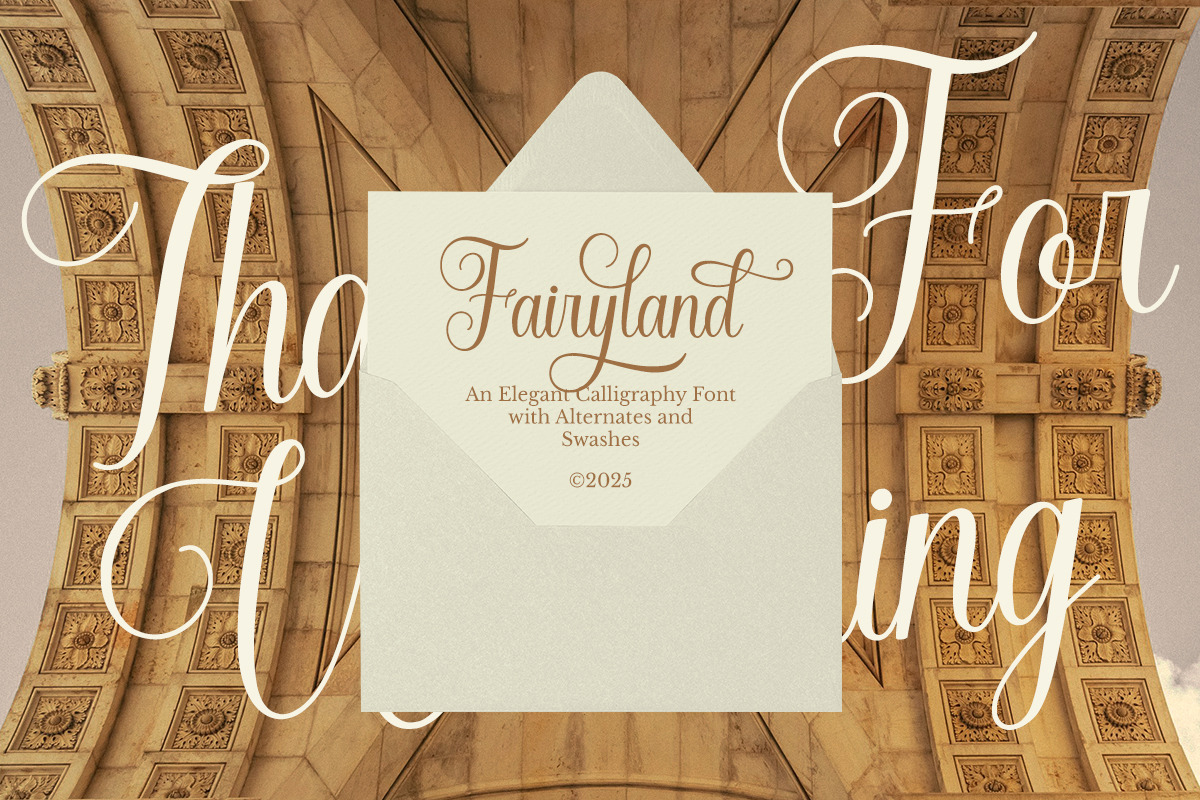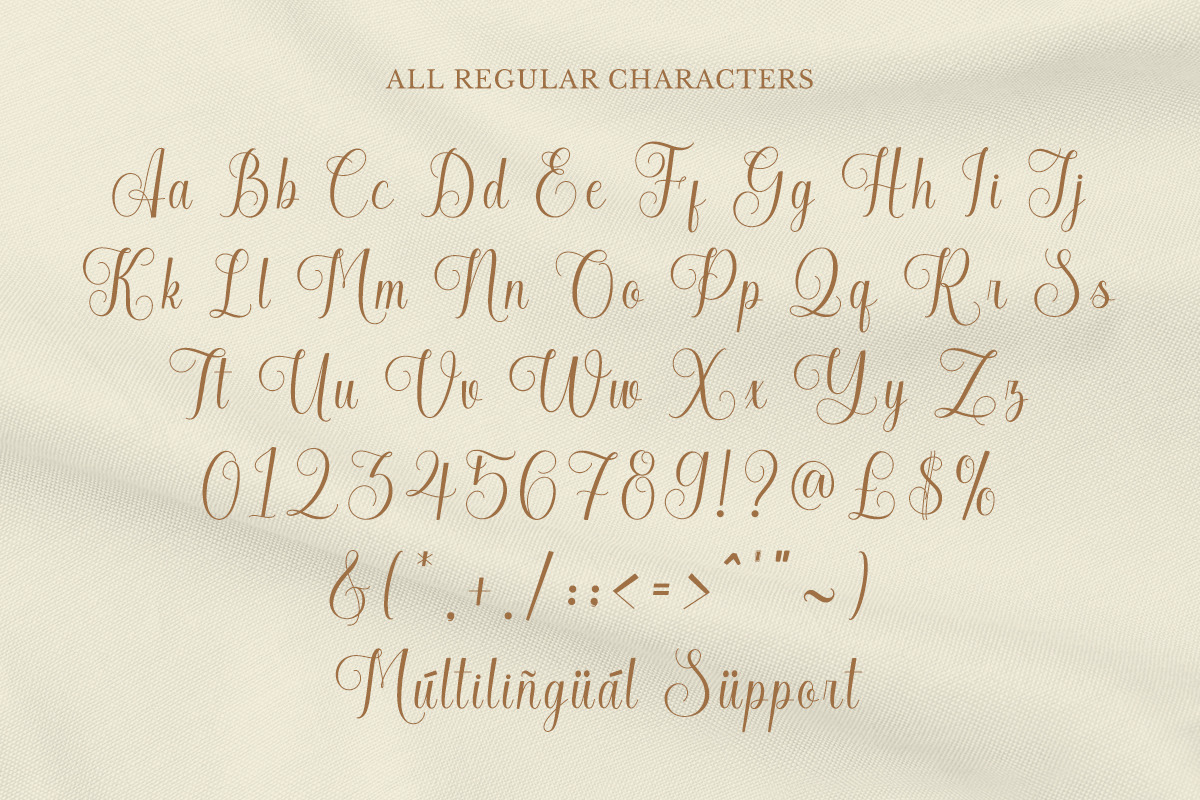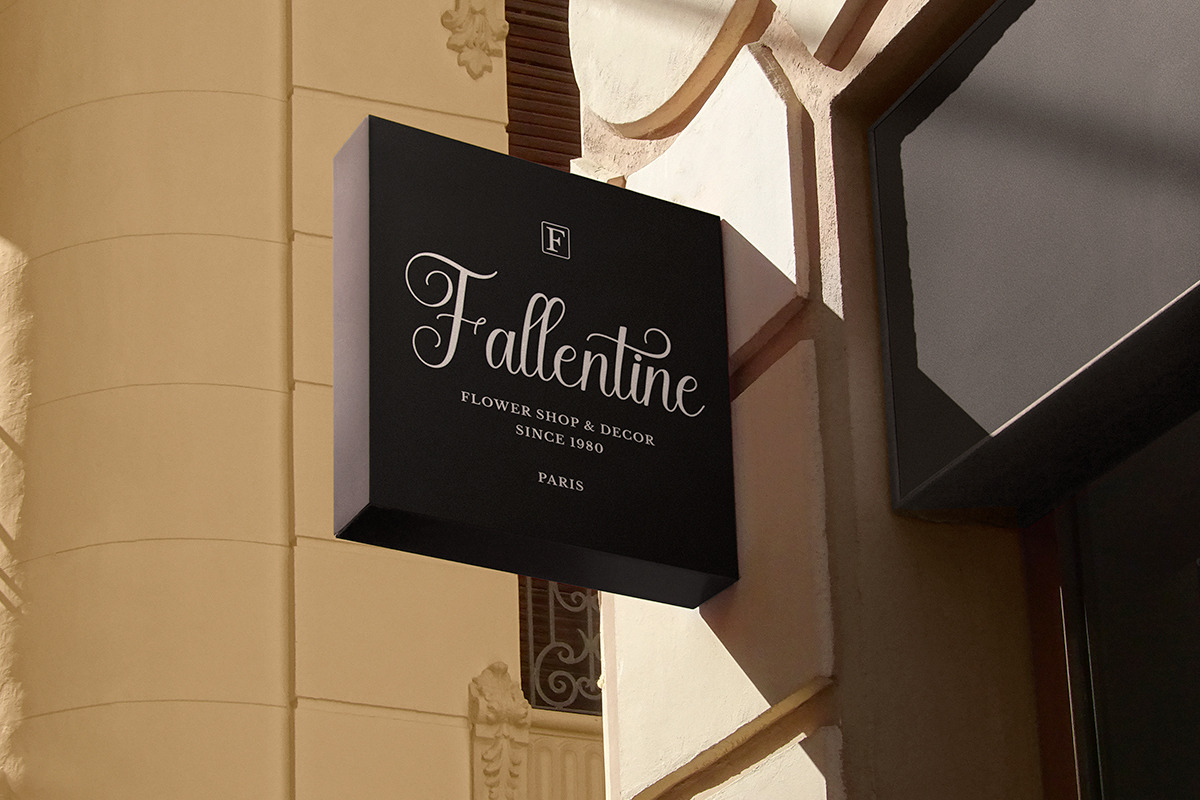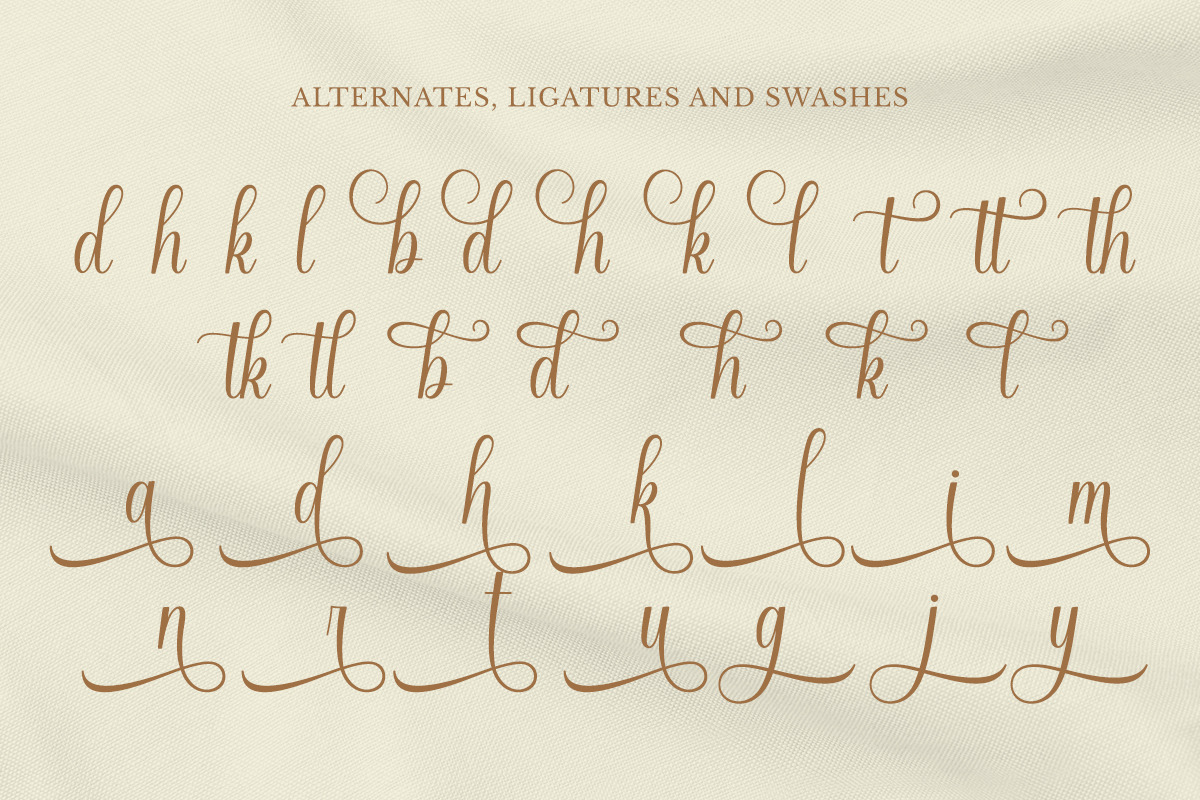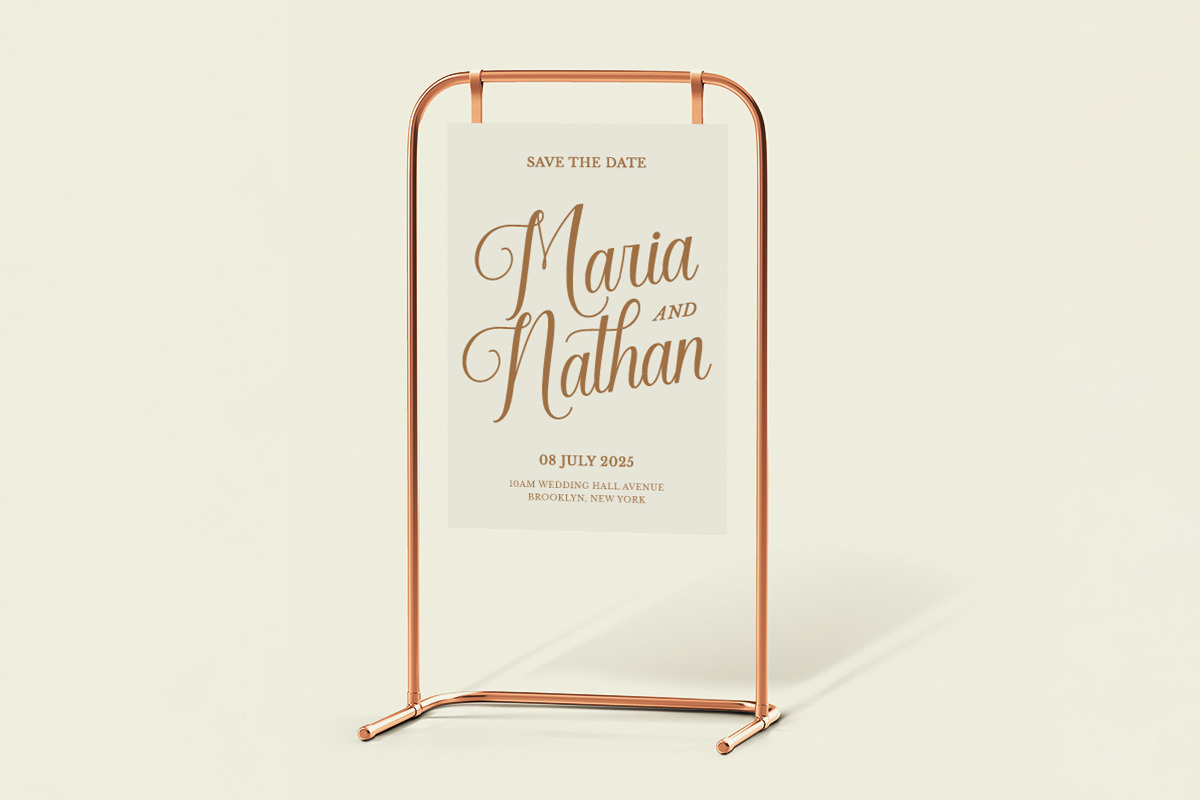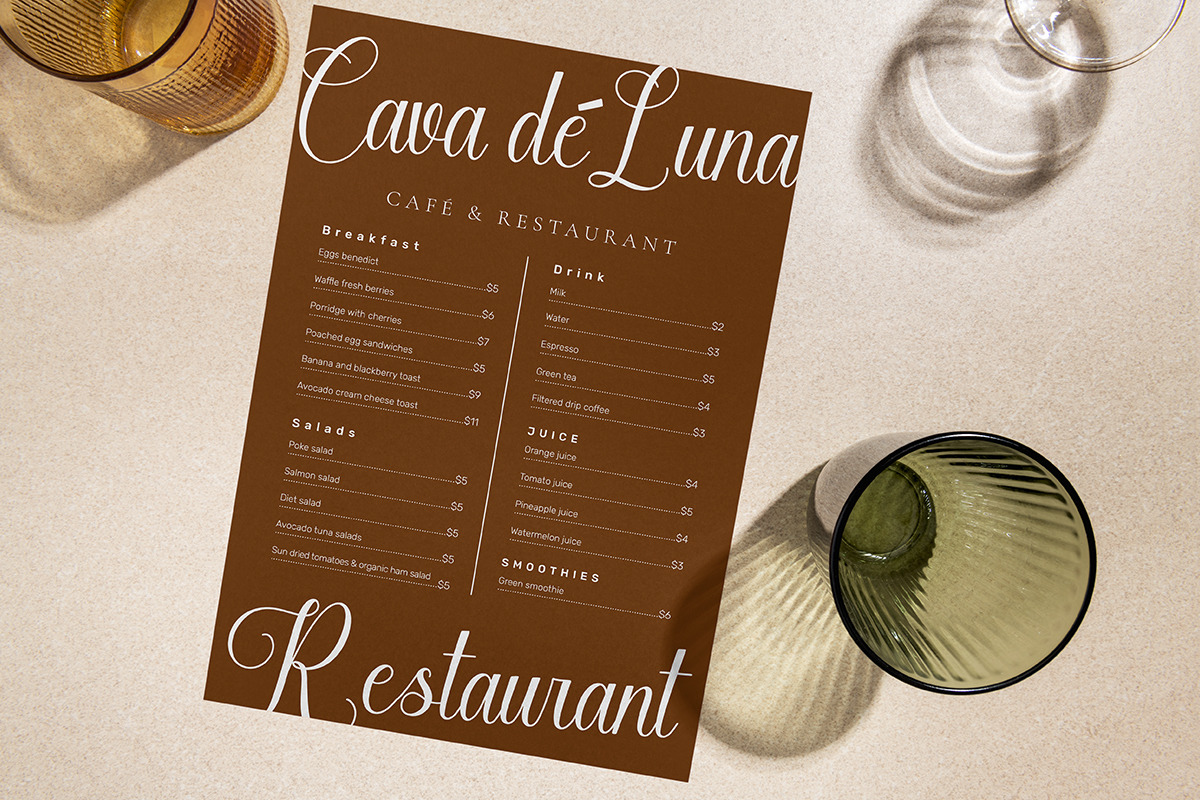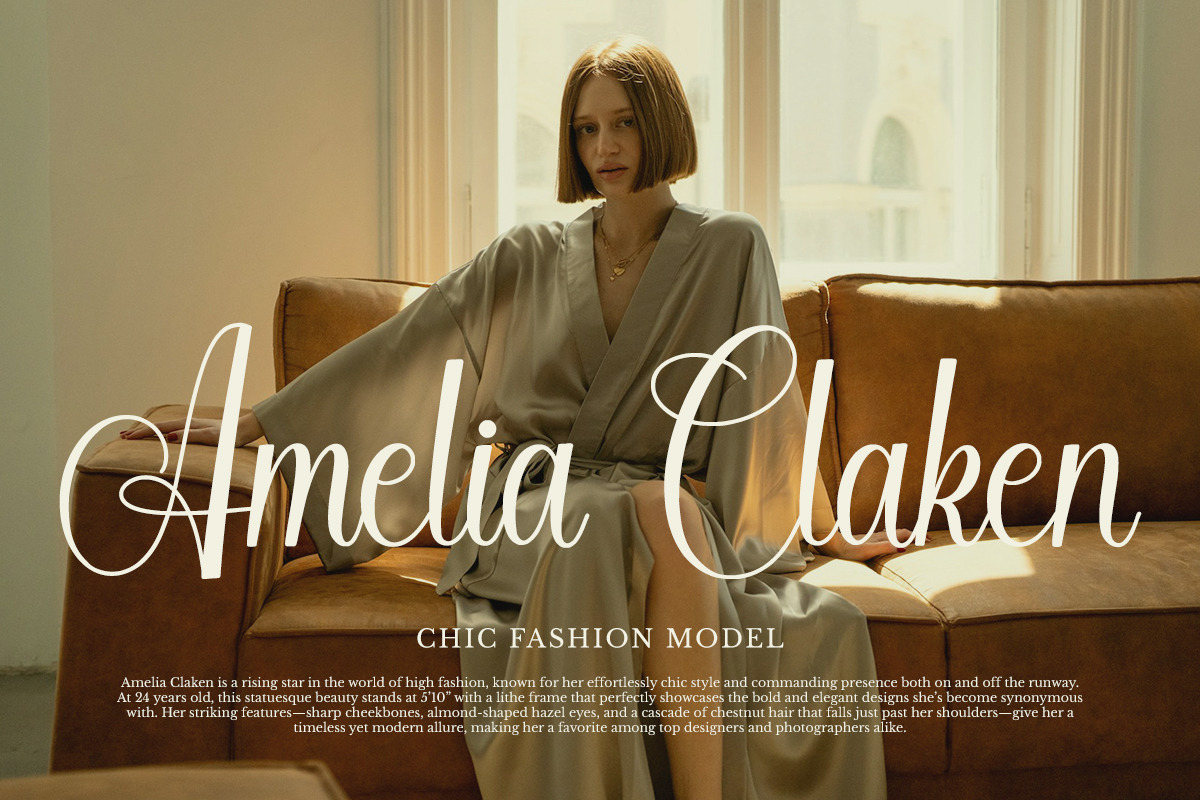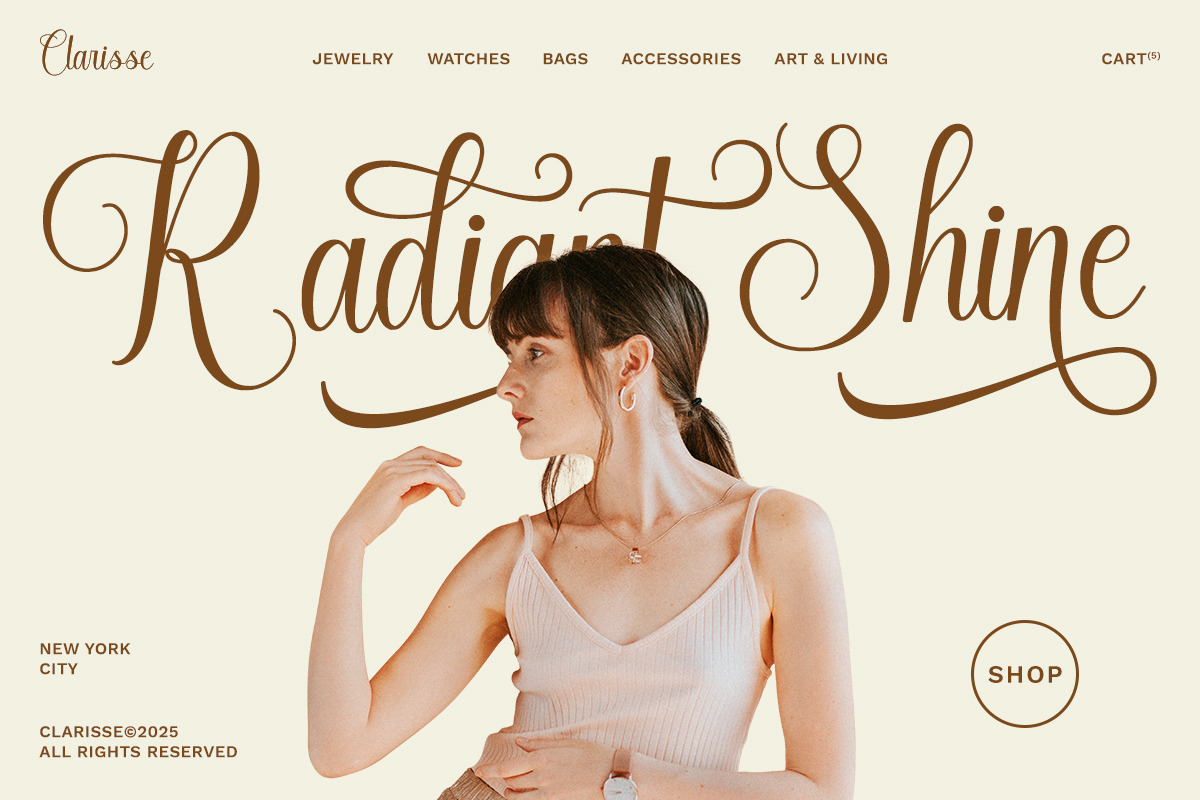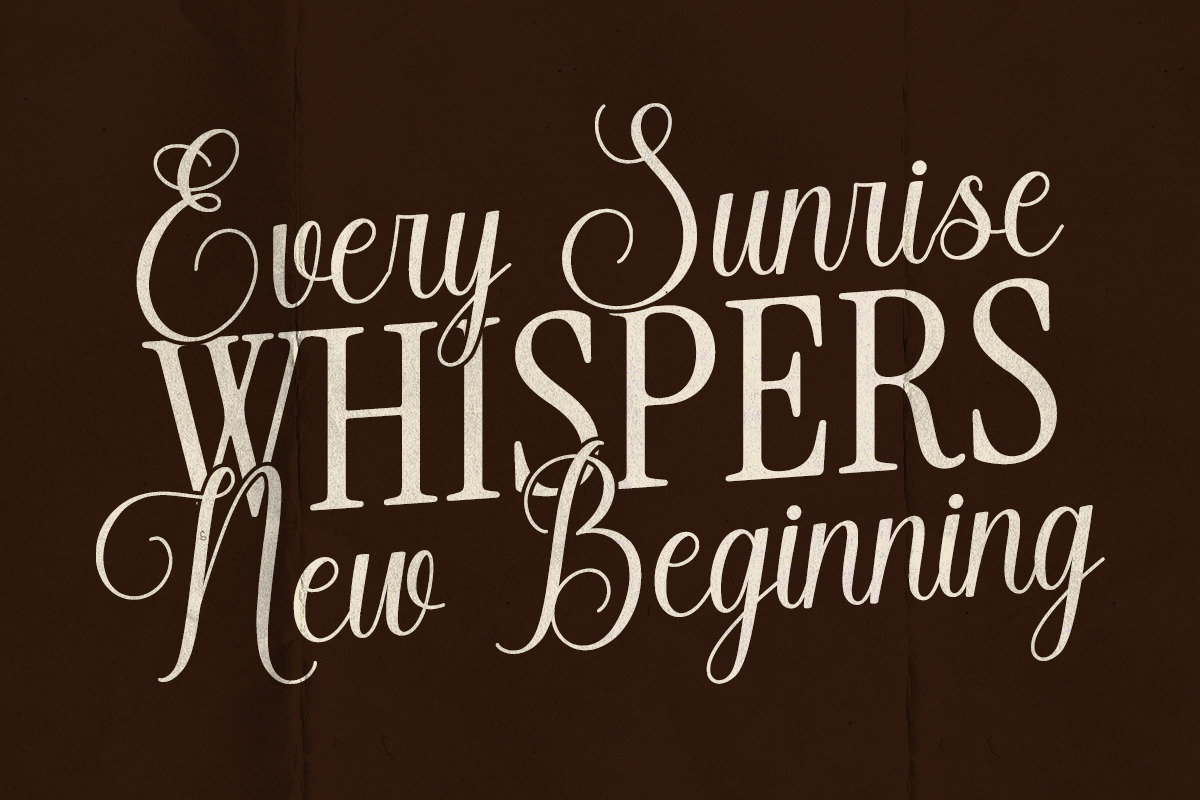
Fairyland
Fairyland is a graceful script handwritten font designed to add a magical, flowing touch to any creative project. Each character is carefully crafted with delicate swashes and sweeping strokes that evoke a sense of romance and whimsy. This font is perfect for capturing the spirit of special occasions and festive moments with a handwritten style that feels both personal and sophisticated.
Every letter in Fairyland features unique beginning and ending swash tails, creating smooth transitions and artistic flair that elevate your designs. With an extensive collection of alternate characters and decorative swashes, customization becomes effortless—allowing for countless combinations that bring your ideas to life with creativity and elegance.
Ideal for wedding invitations, birthday cards, Easter greetings, Thanksgiving crafts, Christmas designs, and seasonal themes like spring, summer, and autumn, Fairyland adapts beautifully across formats. It also pairs seamlessly with Cricut projects, embroidery patterns, SVG files, and other crafts, making it a versatile choice for creators who value detail and harmony in their work.
Let Fairyland become your signature in the world of lettering and design. Its fluid motion and stylistic elegance make it a standout option for branding, personal keepsakes, and seasonal artwork. Whether used in print or digital formats, this font adds a touch of poetic sophistication to every word.